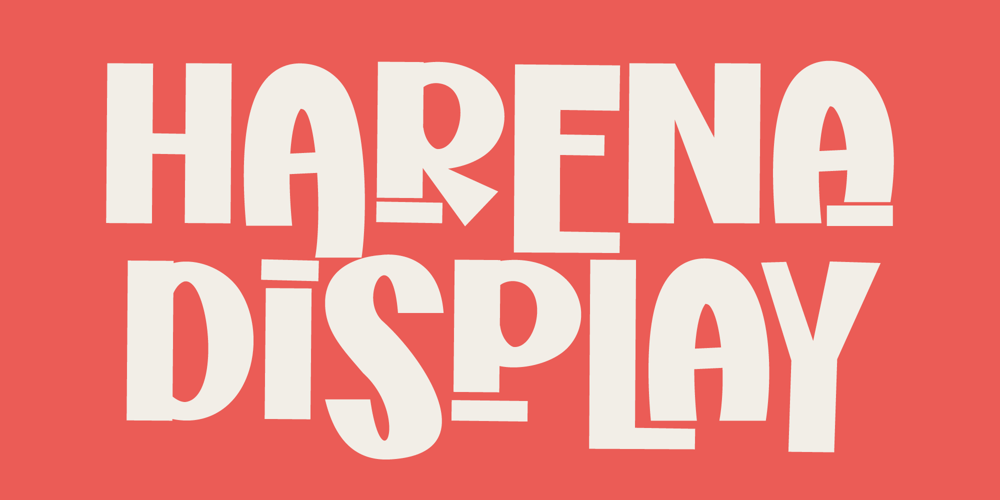
Harena
Harena font
Harena Font Family was designed by Randi Irvan and published by Rvandtype. Harena contains 1 styles and family package options. Harena is a playful display font that exudes energy and fun. With its bold and whimsical letterforms, it adds a cheerful touch to any design. Perfect for creative projects, children’s books, event posters, or branding that needs a lively and approachable feel, Harena brings joy and personality to your typography. Its distinctive style makes it versatile for both digital and print use, ensuring your message stands out with a playful flair.